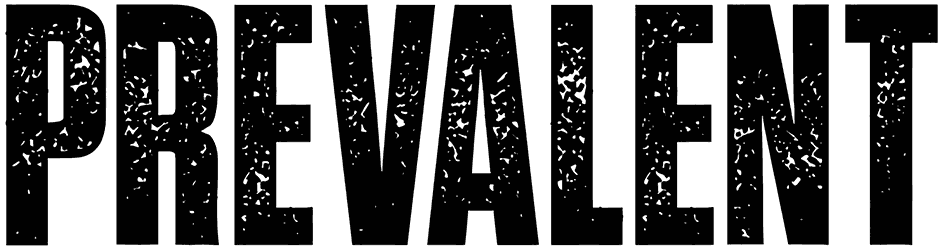
Prevalent Font
Are you seeking a modern style with an old look that will enhance the whimsical feeling of your design? This industrial font, with its adorned sans serif letters, is capable of making it happen. Prevalent font doesn’t have lowercase letters, numerals, and most punctuation marks, but would act as a cool choice for various designs like movie posters, packaging, posters, and whatnot.
About this font:
Inspired by the massive rise of automatic color-grading on photography and videography. Prevalent is a Sans Serif with an incorporated distress, texture effect. The acrylic engraving gives a vintage and aesthetic look on your project. This font works well with your macro photography, portrait and wide-angled shots. Prevalent font also is best used for cinematic videos, classic posters, invitations and greeting cards, band album cover and product presentations.